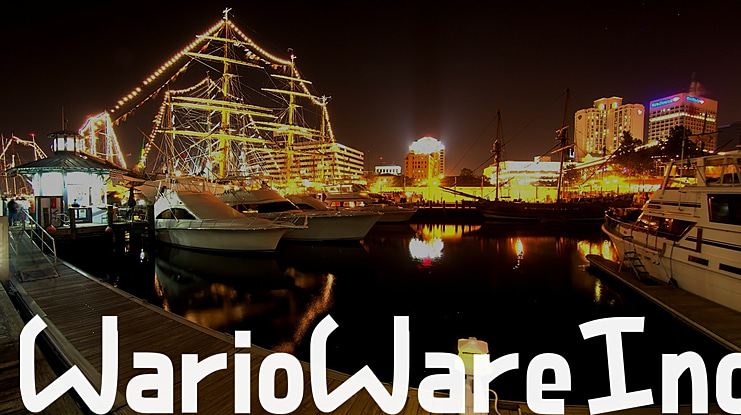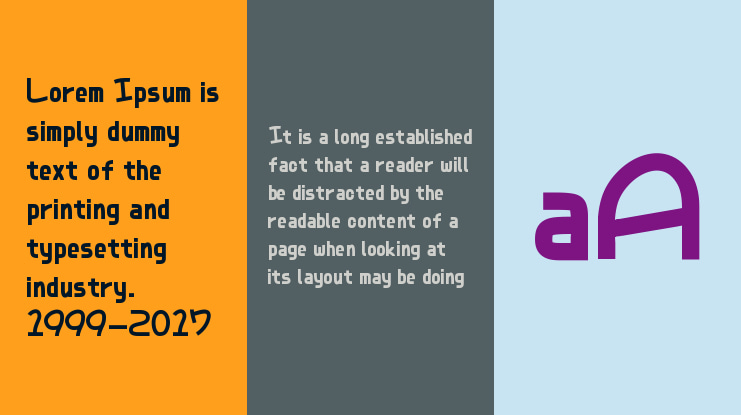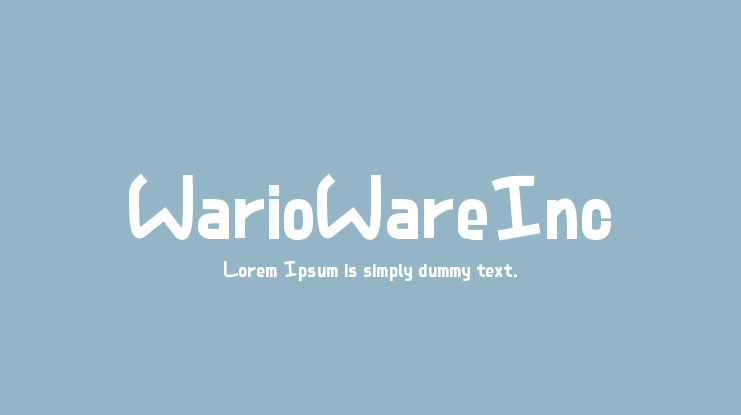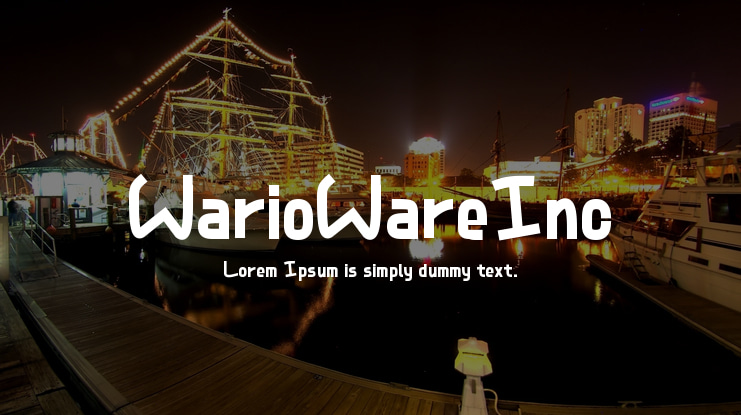
WarioWareInc Font Family
This is a barebones remake of the font from Wario Ware: Smooth Moves, DIY Showcase, and the Smash Bros. stage. This is the first non-pixelated version, too.
Added V2, which is an alternate version with shorter numbers and no descenders.